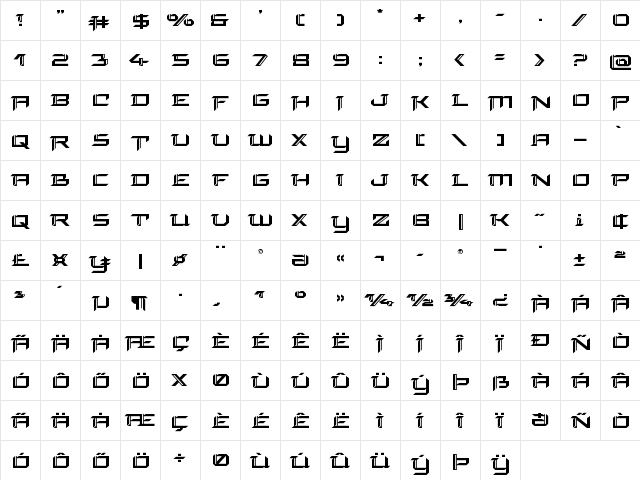
Final Front Expanded Expanded
Design Context for Final Front Expanded Typeface
Final Front Expanded is a composed and adaptable typeface that performs quietly and consistently across a wide range of design contexts.